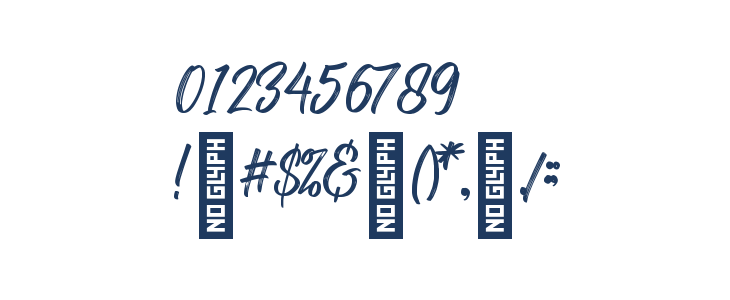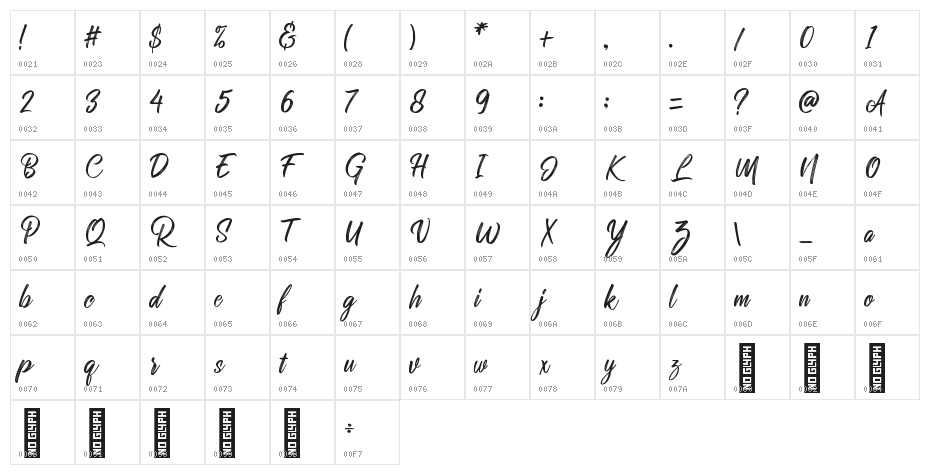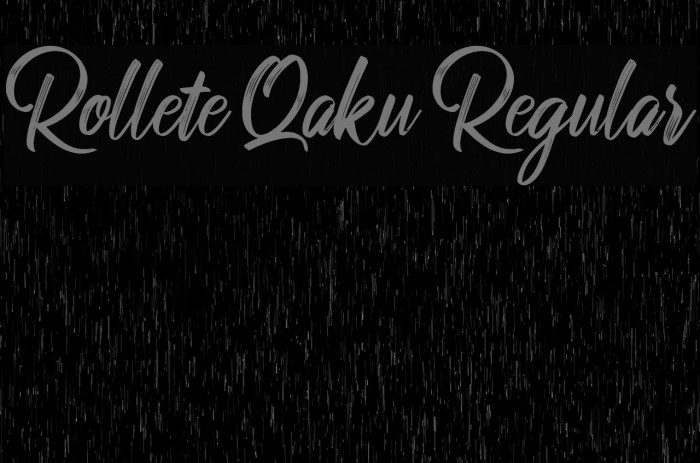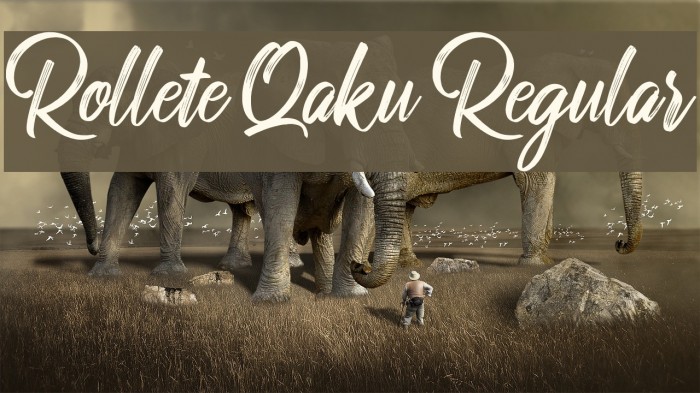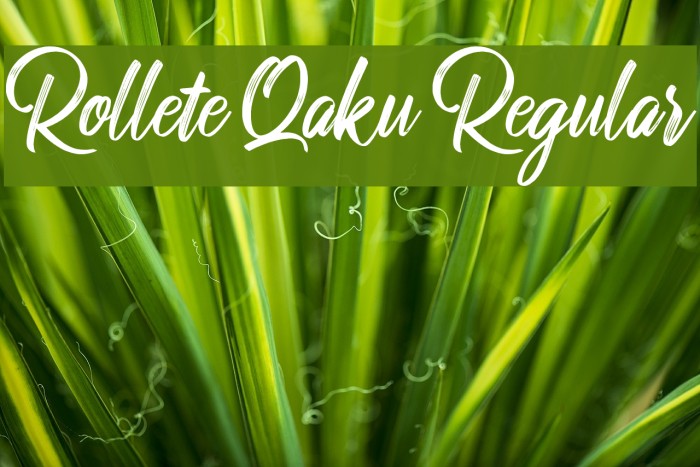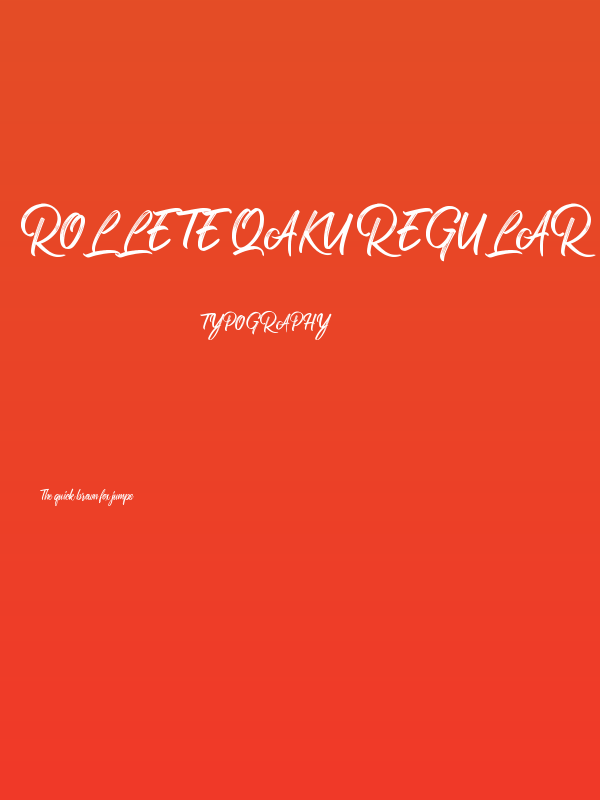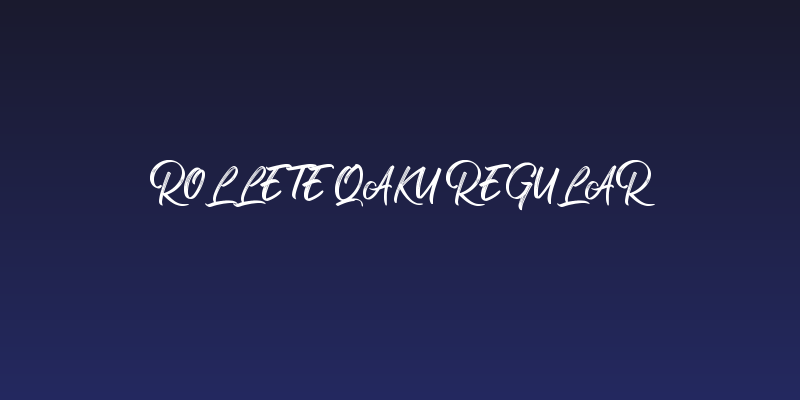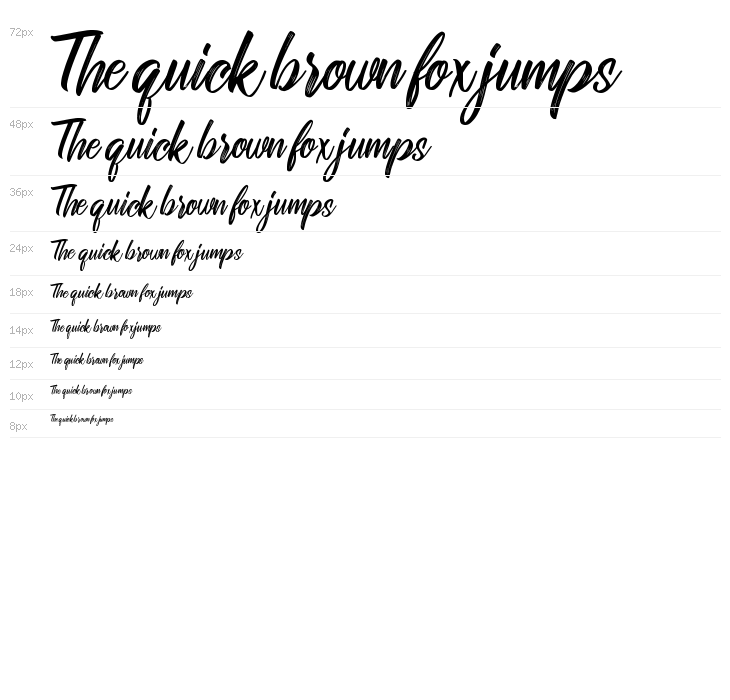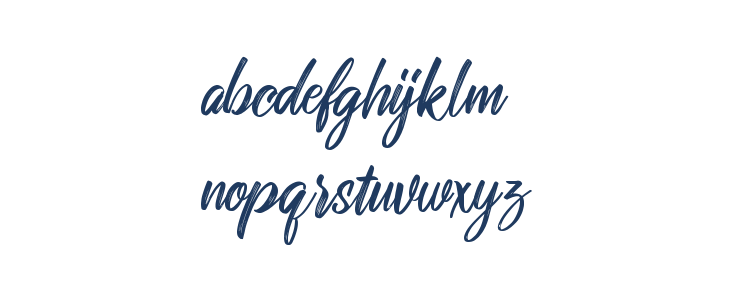
Rollete Qaku Regular Font
Rollete Qaku Regular Description
This font exhibits a dynamic and expressive script style, characterized by its fluid and cursive strokes. The letters are interconnected, giving a sense of continuity and flow. The uppercase letters are bold and prominent, while the lowercase letters maintain a consistent rhythm and elegance. The numbers and special characters are crafted with the same attention to detail, ensuring uniformity across all glyphs. The overall appearance is both artistic and legible, making it suitable for creative and decorative purposes.
| Use Case | Logos, Headlines, Artistic designs |
| Proposed Projects | Ideal for wedding invitations, greeting cards, branding projects, and artistic designs. |